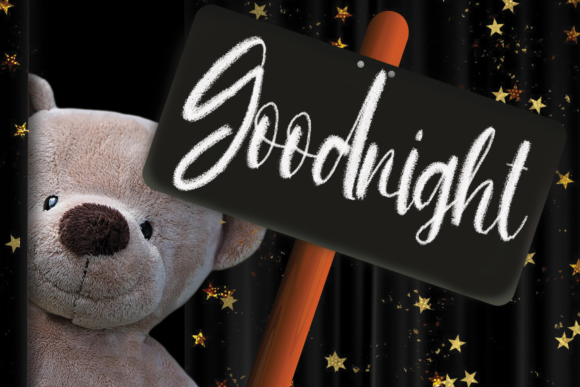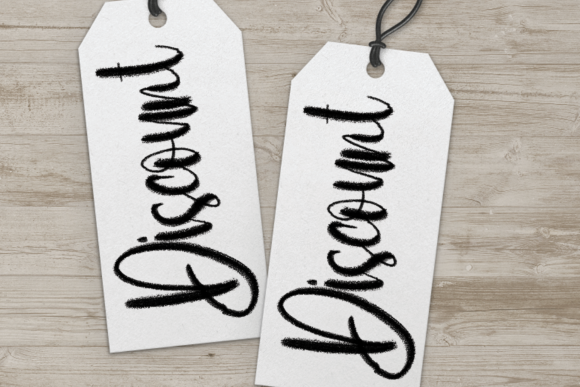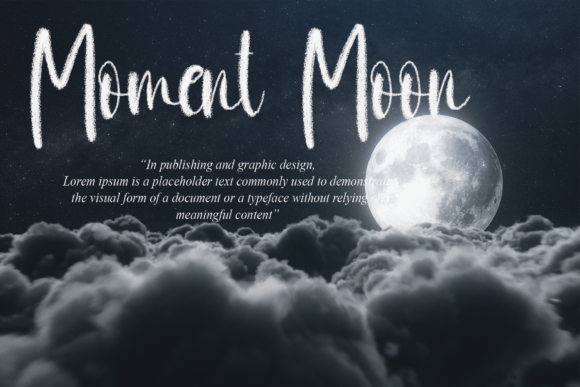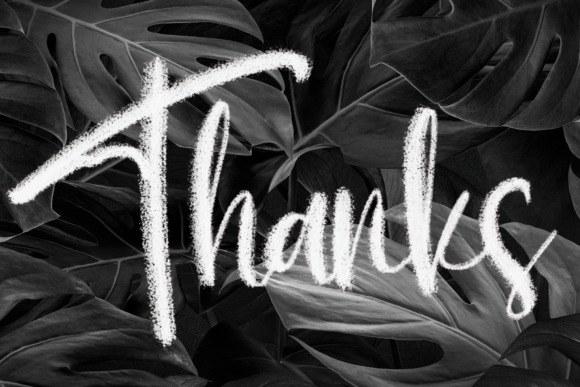
Introducing Brush Signature Font: Elevate Your Designs with a Brushed and Fashionable Script
In the world of design, fonts play a crucial role in conveying the message and aesthetic of a brand. For designers and crafters looking to add a touch of elegance and sophistication to their projects, Brush Signature Font is an excellent choice. This brushed and fashionable script font is perfect for a variety of applications, from logos and t-shirt printing to creative products and more.
What Makes Brush Signature Font Stand Out?
Brush Signature Font is a unique and stylish script font that boasts a distinctive brushed look. Its elegant strokes and fluid connections make it perfect for designs that require a personal touch. The font’s fashionable appearance ensures that your projects will stand out from the crowd, making it ideal for designers and crafters who want to create something truly special.
Perfect for Branding Projects
When it comes to branding, a font can make or break the identity of a company. Brush Signature Font is designed to help you create stunning logos, business cards, and other marketing materials that will leave a lasting impression on your clients. Its versatility allows it to be used in a variety of contexts, from formal to informal, making it perfect for businesses of all kinds.
Brush Signature Font is not just limited to logos and branding materials. Its creative possibilities are endless, making it perfect for a wide range of projects, including:
- T-shirt printing: Create stunning designs for t-shirts, hoodies, and other apparel.
- Creative products: Use Brush Signature Font to add a personal touch to mugs, phone cases, and other creative products.
- Stationery: Design beautiful stationery, including invitations, greeting cards, and more.
- Digital products: Use Brush Signature Font to create stunning digital products, such as ebooks, workbooks, and more.
Why Choose Brush Signature Font?
So, why should you choose Brush Signature Font for your next project? Here are just a few reasons:
- Unique and stylish: Brush Signature Font boasts a unique and stylish brushed look that will set your designs apart.
- Versatile: The font is perfect for a wide range of projects, from logos and branding materials to creative products and more.
- Elegant and sophisticated: Brush Signature Font adds a touch of elegance and sophistication to any design.
Tips for Using Brush Signature Font
To get the most out of Brush Signature Font, here are a few tips:
- Experiment with colors: Brush Signature Font looks stunning in a variety of colors, so don’t be afraid to experiment and find the perfect hue for your design.
- Play with textures: Add an extra layer of depth to your design by incorporating textures and patterns.
- Mix and match: Combine Brush Signature Font with other fonts and design elements to create a unique and eye-catching design.
Brush Signature Font is a versatile and stylish script font that is perfect for designers and crafters looking to add a touch of elegance and sophistication to their projects. With its unique brushed look and endless creative possibilities, it’s an excellent choice for a wide range of applications. Whether you’re creating logos, t-shirt designs, or creative products, Brush Signature Font is sure to elevate your designs and help you stand out from the crowd.